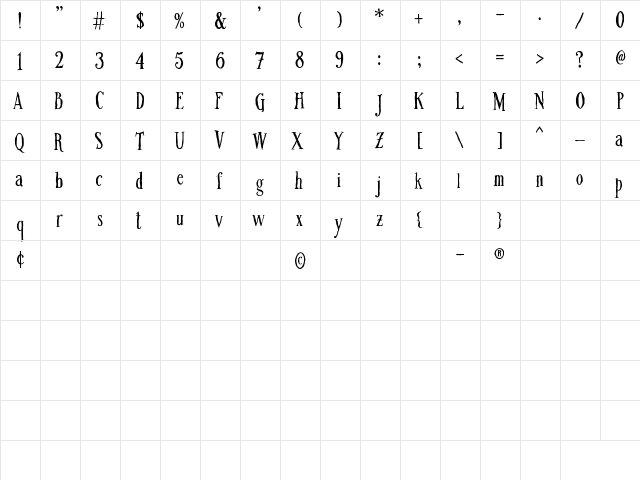
Boxtrolls Font Regular
Design Context for Boxtrolls Font Typeface
Boxtrolls Font is a composed and adaptable typeface that performs quietly and consistently across a wide range of design contexts.